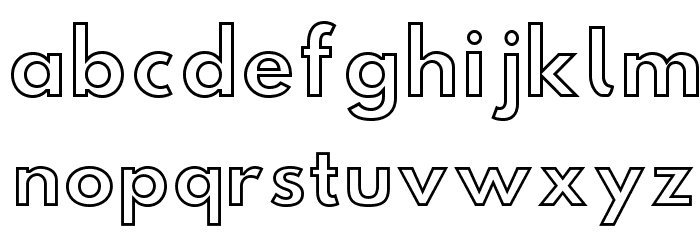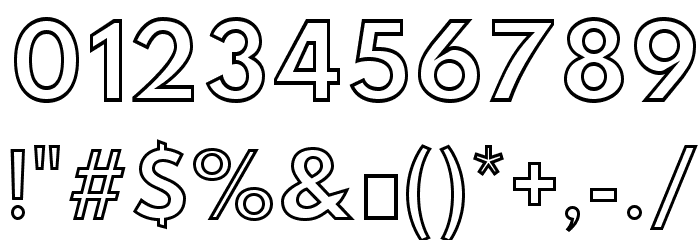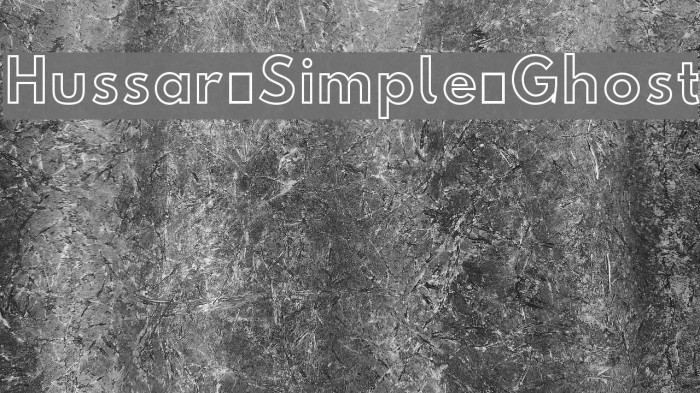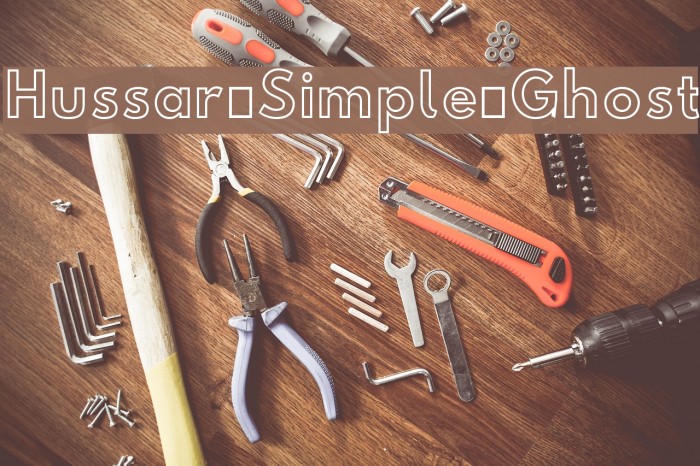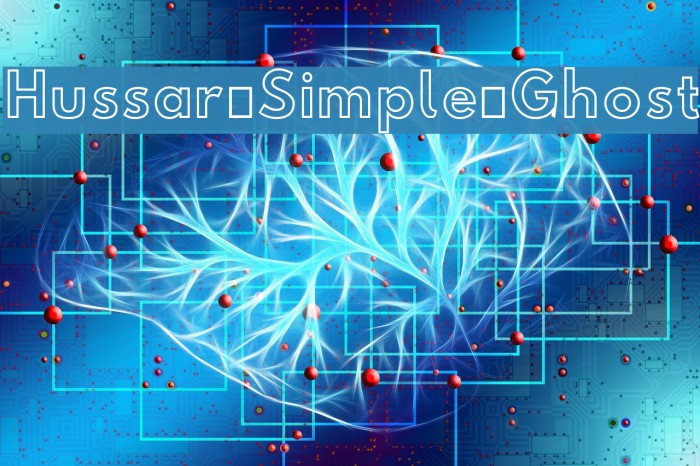
Hussar Simple Ghost Font
This font features a clean and modern outline style, characterized by its geometric shapes and uniform line thickness. The uppercase and lowercase letters maintain a consistent height and width, creating a harmonious and balanced appearance. The numerals and special characters follow the same design principles, ensuring a cohesive look across all elements. The font's open and airy design makes it highly legible, even at smaller sizes. Its simplicity and clarity make it versatile for various design applications, from digital to print media.
A modern, geometric outline font with consistent line thickness and high legibility.
- Proposed Projects: Ideal for branding, headlines, posters, and digital media where a modern and clean aesthetic is desired.